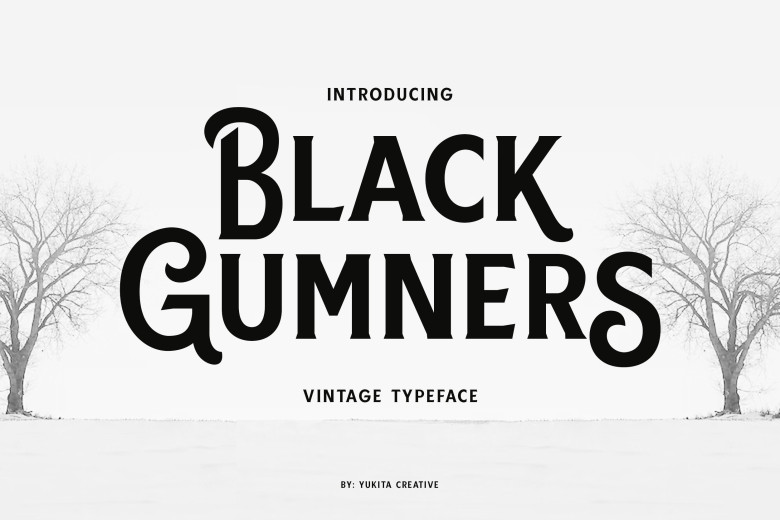
Black Gumners Font
Black Gumners is a stylish, vintage-looking display font that impresses through its natural and elegant style. Add it to your most creative ideas, and notice how it transforms them into authentic pieces of art!
Its optimum legibility, clean, and geometric look is perfect branding, brochures, greeting cards, quotes, posters, stationary, design titles, blog headers, and much more.
Black Gumners Display Font